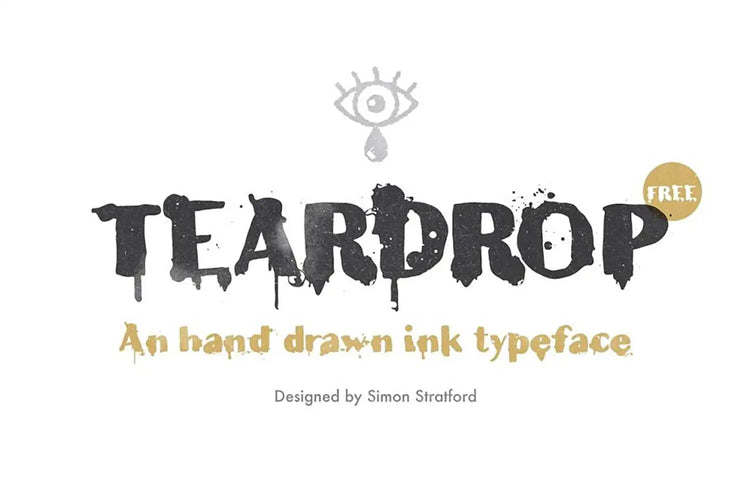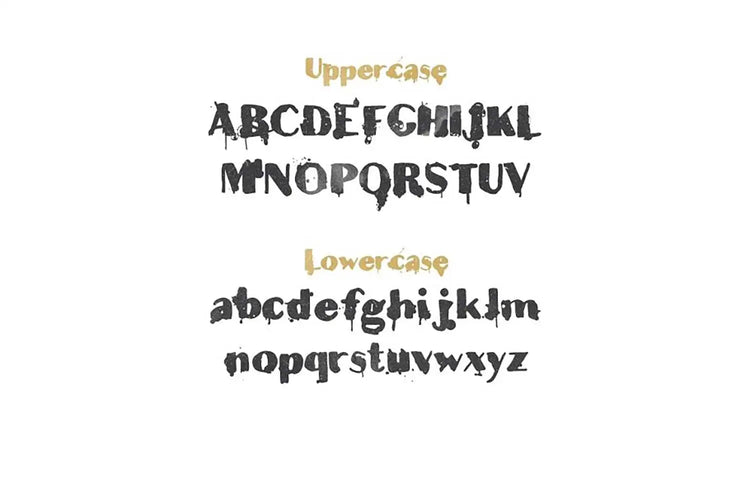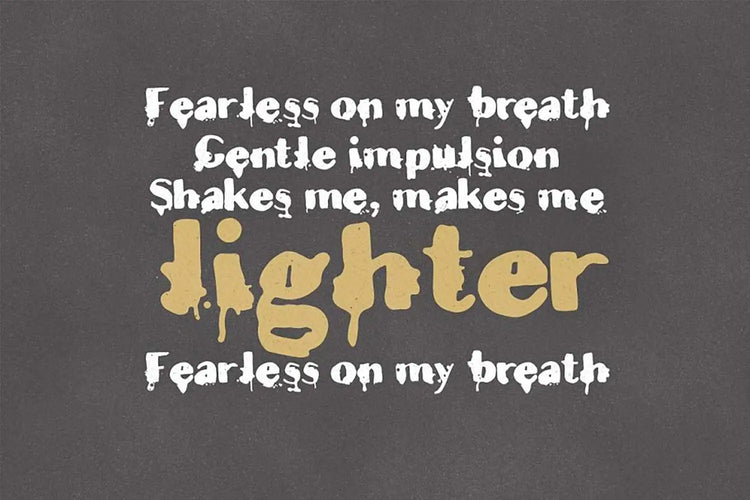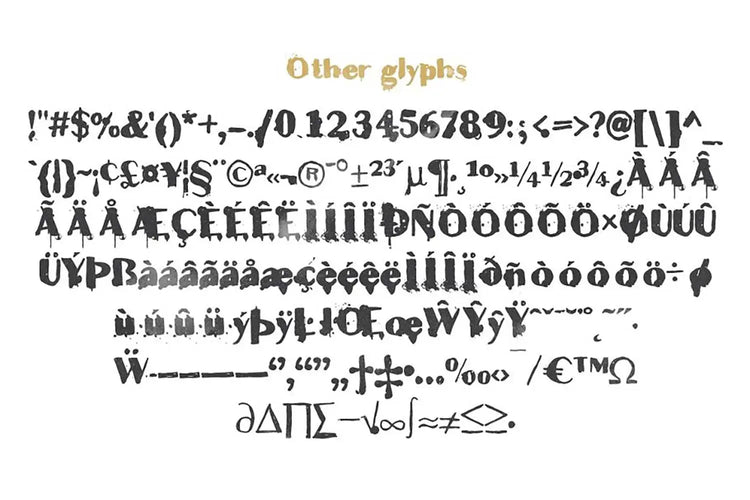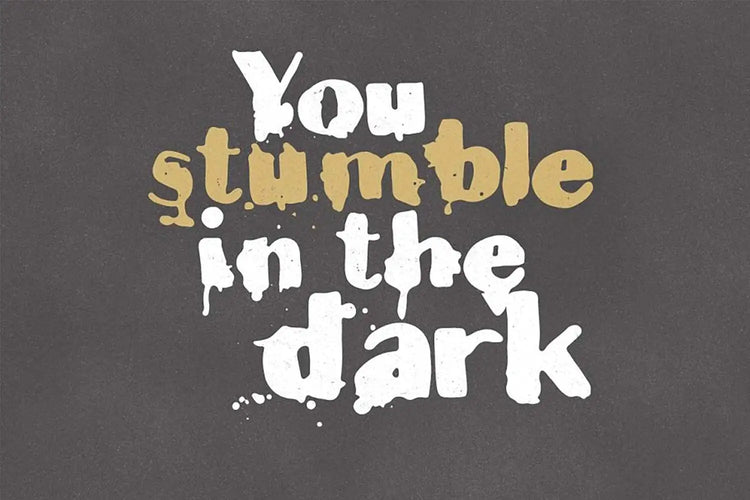
Teardrop — Hand-Drawn Ink Display Font
About Teardrop
Teardrop font is a meticulously hand-drawn ink typeface featuring contextual alternatives. It is entirely crafted by hand.
My objective was to design a font that mimicked the effect of teardrops hitting ink, giving rise to drips and splashes.
Certain inks are designed to disperse and expand upon contact with water, producing a gentle and diffused look. Replicating this effect in a font is exceptionally challenging, but I was determined to try it.
Teardrop Font
Teardrop is imperfect, distressed, and like that gentle rain on a quiet afternoon – soft, soothing, and full of emotion.
Whether crafting heartfelt wedding invitations, elegant poetry, or simply wanting to add emotion to your designs, Teardrop font is your go-to.
Teardrop Font Name
I stole the name from the Massive Attack song Teardrop, but they brought in Elizabeth Fraser from the Scottish band Cocteau Twins to sprinkle some lyrical magic. The song's got this otherworldly vibe that's, well, ethereal and haunting.
Now, as for the lyrics, think of it as a deep dive into the human experience. It's like a soul-searching journey where you ponder life's fragility and the weight of loss.
The emotional depth and musical charm? Off the charts. If you ever get the chance, see the band live, see them live.
If Teardrop Were a Celebrity
If the font Teardrop were a celebrity, it would be the soulful and emotionally expressive Adele. Just as Adele's music is renowned for its heartfelt lyrics and stirring melodies, Teardrop font carries an air of emotional depth and sensitivity in the world of typography.